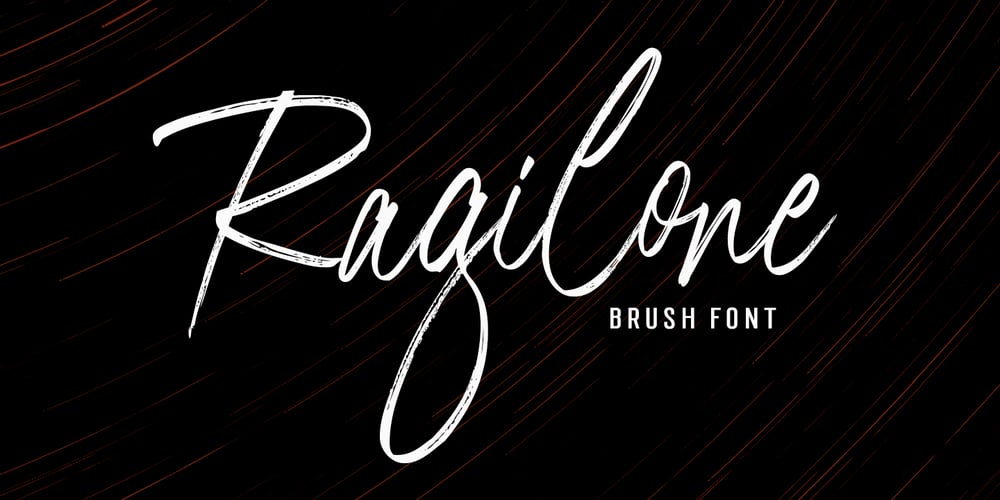
Ragilone Brush Font Family was designed by Rizki Andika and published by Letterfreshstudio. Ragilone Brush contains 2 styles and family package options. Ragilone brush font, featuring a contemporary approach to design, and a handmade, natural irregular baseline. It is also equipped with alternatives and ligatures. Suitable for use in title design as well as apparel, invitations, books tittle, stationery design, quotes, branding, logos, greeting card, t-shirt, packaging design, poster and more. Ragilone Brush includes a complete set of uppercase and lowercase letters, as well as multi-language support, numbers, punctuation.